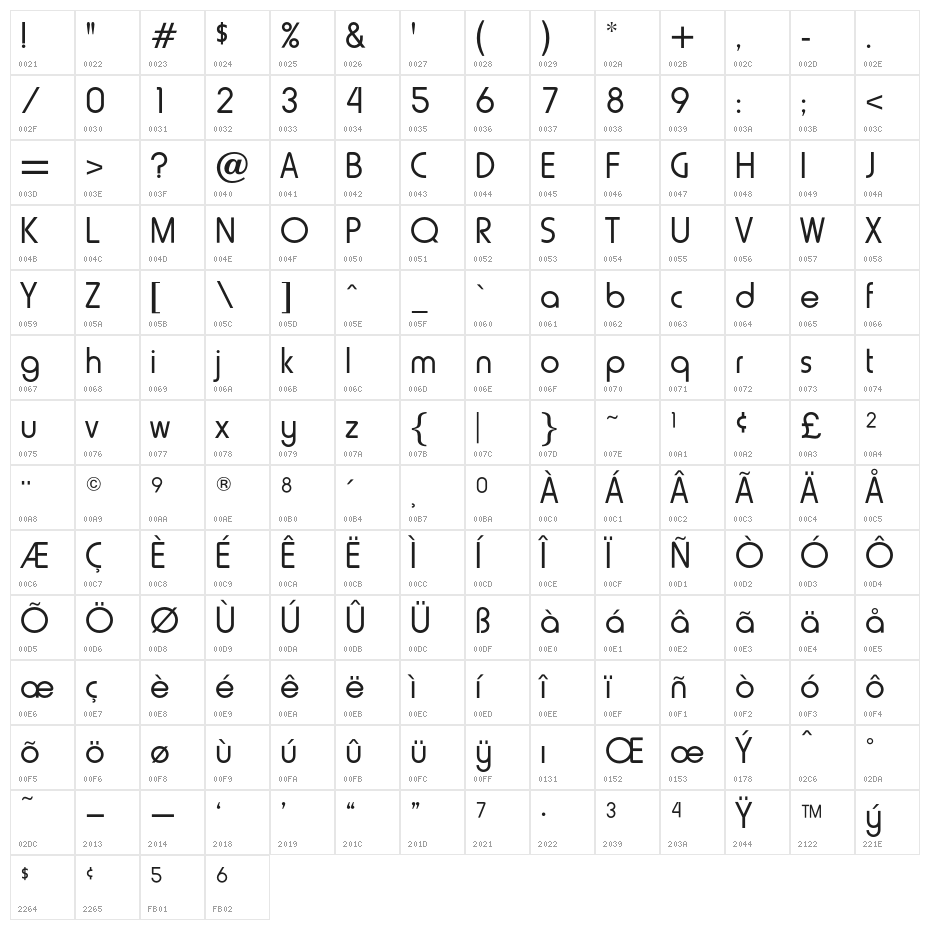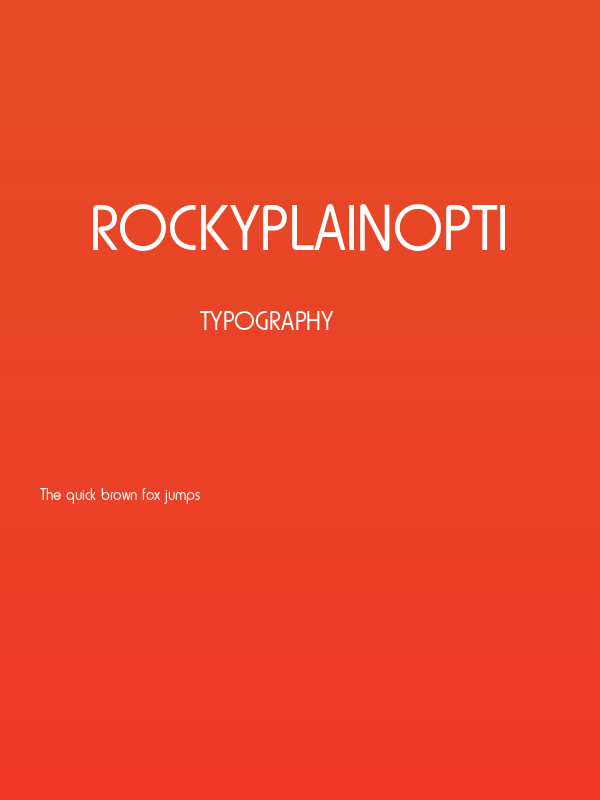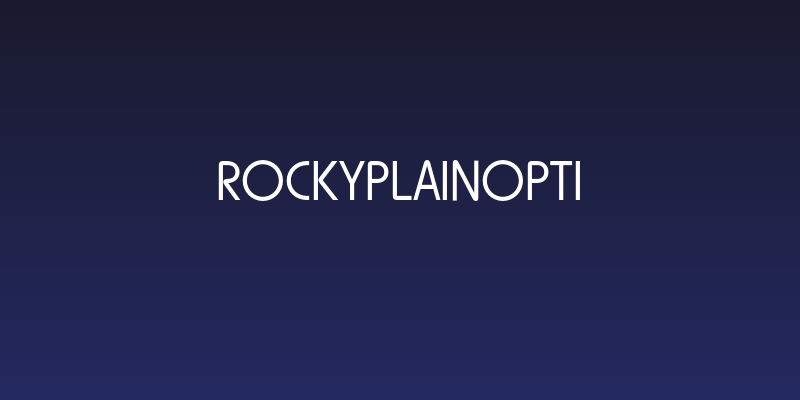
RockyPlainOpti Font
RockyPlainOpti Description
This font features a clean and modern sans-serif design, characterized by its geometric shapes and uniform stroke widths. The uppercase letters are bold and assertive, while the lowercase letters maintain a consistent style that complements the uppercase. The numerals are clear and easy to read, making them suitable for a variety of applications. Special characters are well-defined, adding versatility to the font's use. The overall appearance is sleek and professional, making it ideal for contemporary design projects.